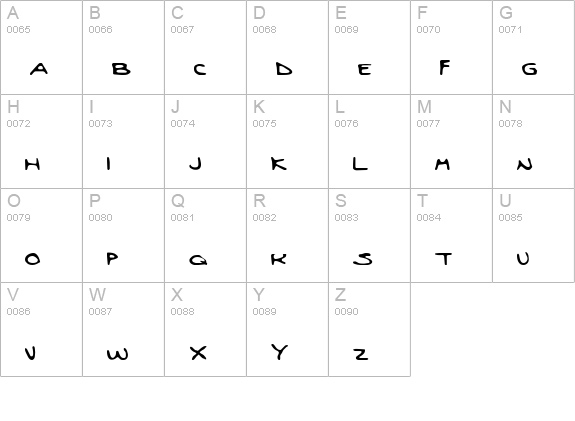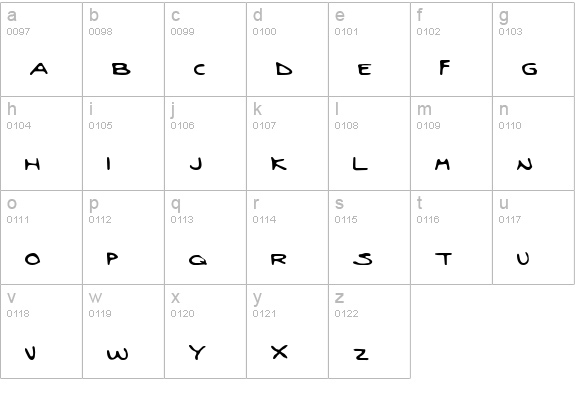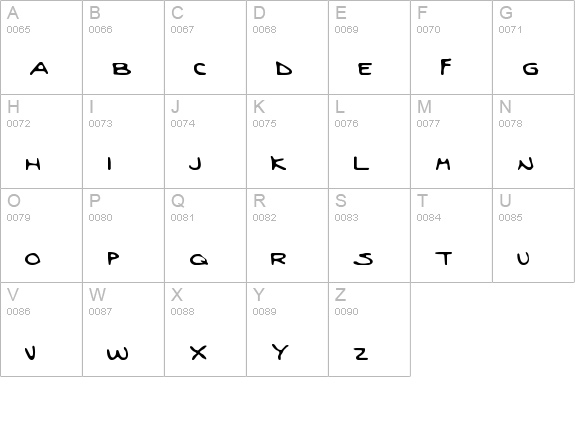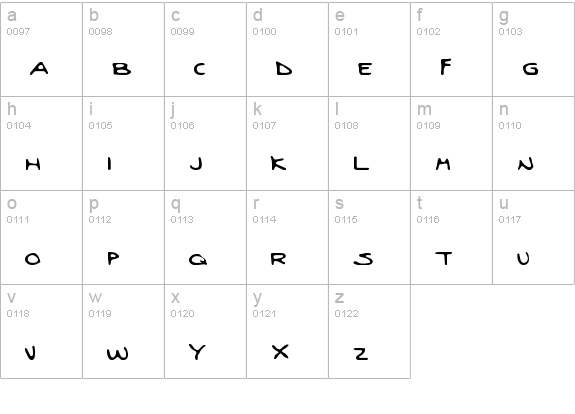
Goldberg Font Details
The Goldberg font is a versatile and modern typeface that exudes sophistication and elegance. With its sleek lines and stylish curves, this font is perfect for adding a touch of class to any design project. Whether you're creating a logo, designing a website, or crafting a promotional flyer, Goldberg font is sure to make a statement. What's even better is that the Goldberg font is free to download at FontsMarket.com. This means you can enhance your projects with this stunning font without breaking the bank. Don't miss out on the opportunity to elevate your designs with the Goldberg font today!